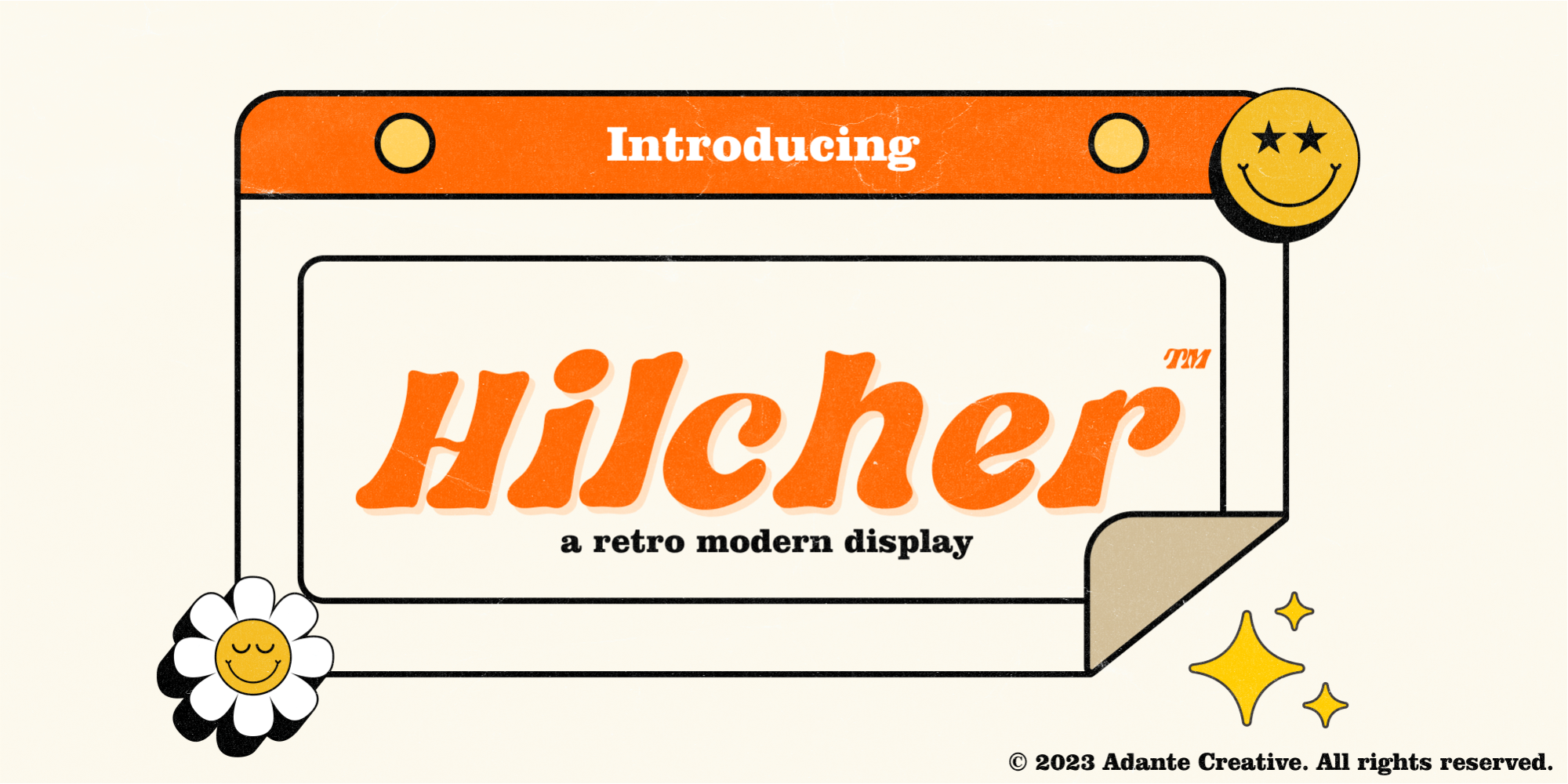
The Hilcher Font is ideal for modern branding projects, minimalist websites, corporate presentations, architectural signage, tech startup logos, contemporary magazines, clean product packaging, and professional business cards. This versatile typeface works exceptionally well in applications where clarity and modern sophistication are paramount, making it perfect for both digital interfaces and print materials that require crisp, professional typography.
What makes Hilcher Font exciting is its perfect balance between geometric precision and organic warmth that creates a distinctive contemporary character. The font's carefully crafted letterforms feature subtle curves and refined details that maintain excellent readability while adding personality to any design. Its clean lines and balanced proportions make it incredibly versatile, allowing designers to create everything from bold headlines to elegant body text with consistent visual harmony.
The Hilcher Font family typically includes light, regular, medium, and bold weights, often complemented by matching italic styles and extended character sets. Many versions feature advanced OpenType features, including stylistic alternates, ligatures, and comprehensive multilingual support that enhance typographic flexibility for international design projects.
For designers seeking a reliable workhorse font that combines modern aesthetics with timeless appeal, Hilcher Font Free Download offers exceptional value. Its adaptability across various design contexts makes it an indispensable tool for creating cohesive brand identities and editorial designs that communicate professionalism while maintaining visual interest and contemporary relevance.